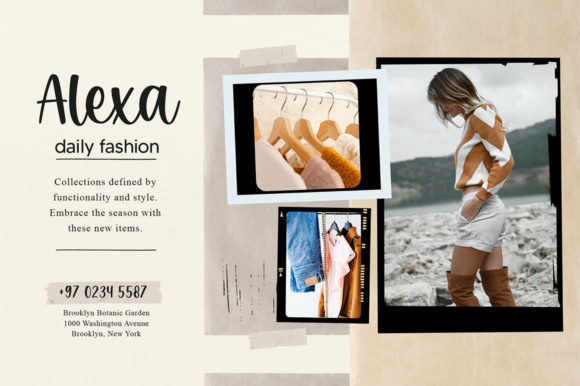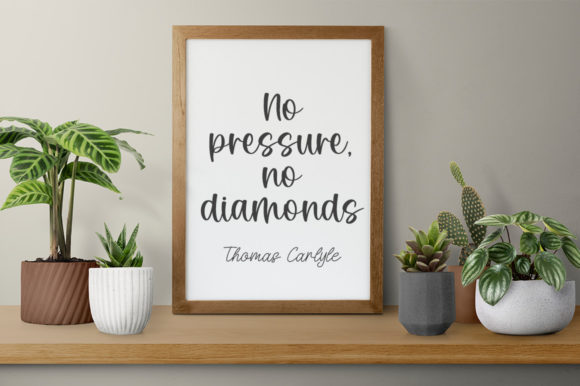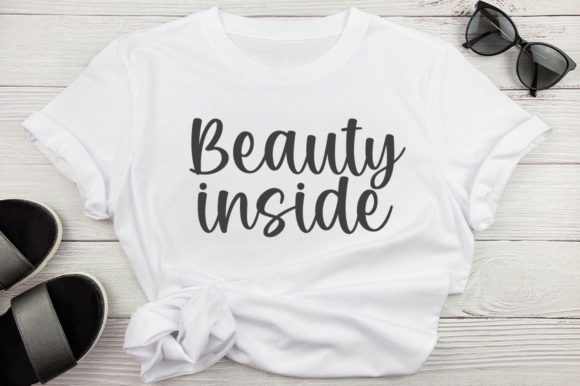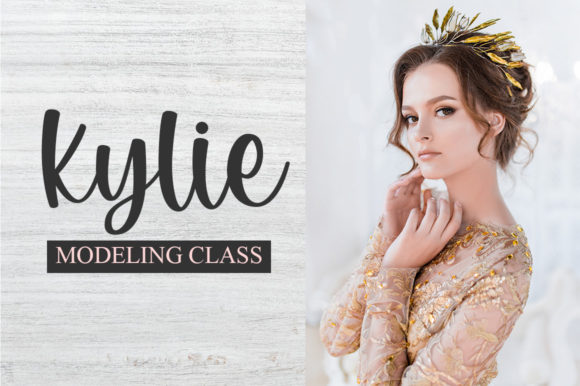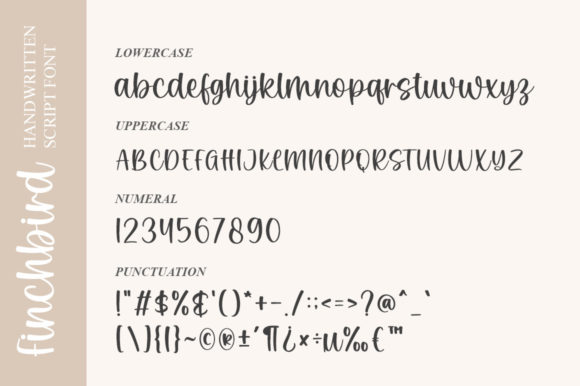
Introduction to Finchbird Font
Remember the thrill of discovering that perfect font for your design project? The one that elevates your creative vision and makes your work stand out? For many designers, that moment is what makes the long hours and endless revisions worth it. And for those who have stumbled upon the Finchbird Font, we’re sure you can relate.
Finchbird Font is more than just a design resource – it’s a game-changer. This delicate and refined script font exudes sophistication and elegance, making it the perfect match for any project. With its stylish alternates and ligatures, you’ll be able to add a touch of high-quality finesse to your designs, whether you’re working on a logo, brochure, or website.
Key Features of Finchbird Font
- Unique and stylish font with a transparent background, perfect for adding a touch of elegance to any design.
- Finchbird Font is a scalable design resource, available in different sizes and resolutions, making it suitable for use in various creative projects.
- Features a modern and sophisticated design aesthetic, making it an excellent choice for designers and artists working on high-end projects.
- Designed with a focus on readability and legibility, ensuring that the font remains clear and easy to read, even at small sizes.
Honest Review: Finchbird Font
As a designer, I’m always on the lookout for high-quality fonts to enhance my creative projects. The Finchbird Font caught my eye, and I’m excited to share my honest review.
- High-quality design: The Finchbird Font is beautifully crafted, with smooth lines and a clean aesthetic.
- Transparent background: This allows for seamless integration with any design element, giving me more flexibility.
- Wide range of uses: The Finchbird Font is suitable for a variety of design projects, from logos to typography-heavy designs.
While the Finchbird Font is an excellent addition to any design resource, I did encounter a few limitations:
- Limited font sizes: The font may not be suitable for very large or very small font sizes, which could affect readability.
- Lack of italic/oblique styles: The font only comes in regular and bold styles, which may limit its use in certain design scenarios.
Overall, I’m impressed with the Finchbird Font, and I would recommend it to fellow designers. While it may have some limitations, its high-quality design and versatility make it a valuable addition to any design resource collection.